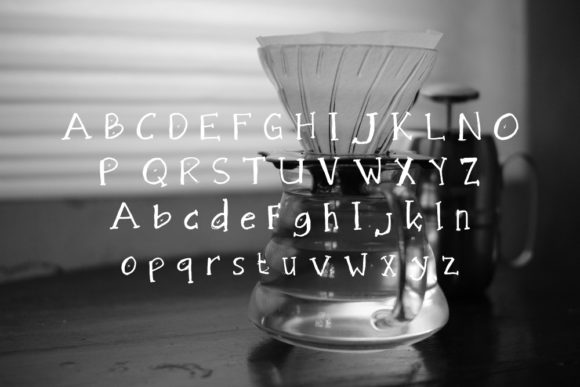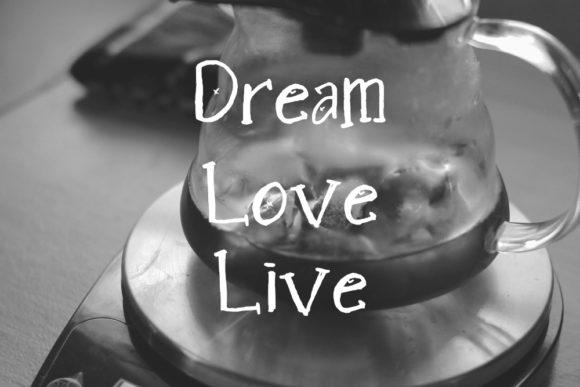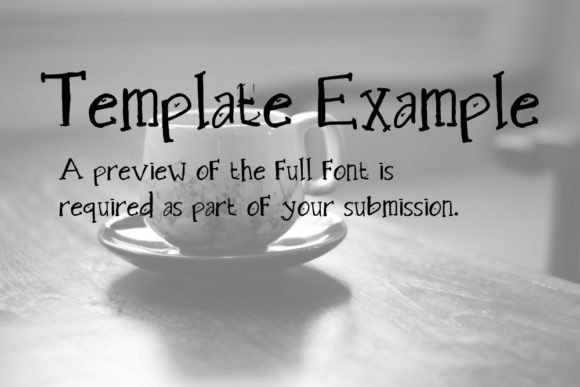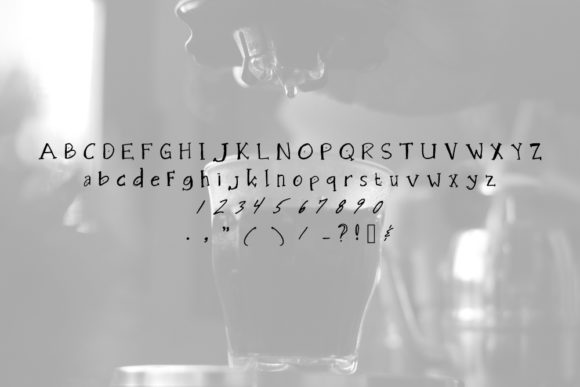
The Designer’s Delight: Alpha Anggela Font
Alpha Anggela is a beautiful, modern font that can elevate any design project. Here’s what I love about it:
- ✨ Unique and playful look: Alpha Anggela has a distinctive, hand-crafted feel that’s perfect for making a statement.
- ✅ Versatile: This font works well for a wide range of projects, from social media graphics to DIY crafts and even professional designs.
- 💫 Easy to read: Despite its playful look, Alpha Anggela is surprisingly easy to read, even in smaller sizes.
Of course, no font is perfect, and there are a few quirks to watch out for:
- ⚠️ Limited use in formal contexts: Alpha Anggela’s playful nature makes it less suitable for formal or corporate designs.
- 🤔 Glyph limitations: While the font has a wide range of glyphs, some users may find that it lacks certain special characters.
The Story Behind Alpha Anggela
Alpha Anggela was designed with the creative hobbyist in mind. Its creator, a passionate typographer, wanted to craft a font that would inspire artists and designers to push the boundaries of their imagination. With its unique blend of playfulness and sophistication, Alpha Anggela is sure to become a favorite in any designer’s toolkit.
| Is Alpha Anggela suitable for body text? | While Alpha Anggela is easy to read, it’s primarily designed for display purposes. For body text, you may want to consider a more traditional font with better legibility. |